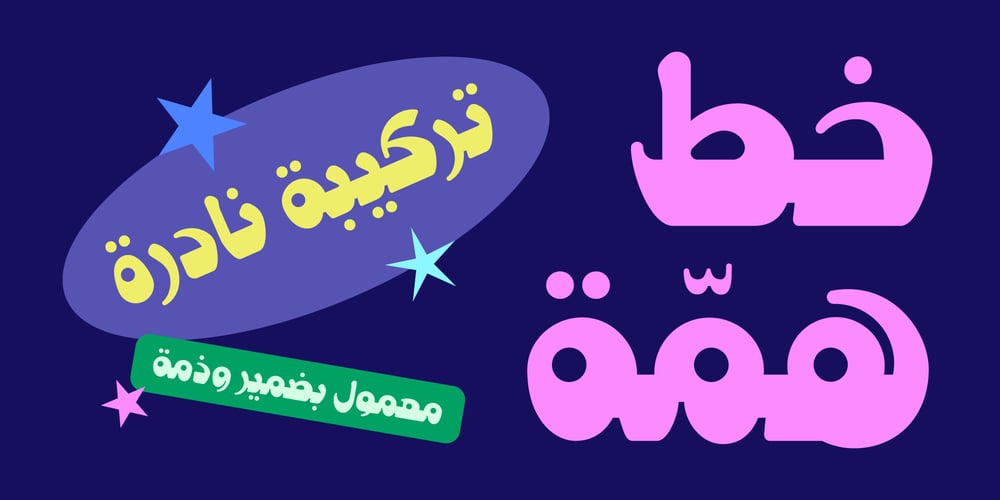
Hemmah Arabic Font Family was designed by Abdulrahman Eleraqy and published by Eraqy TF. Hemmah Arabic contains 1 styles and family package options. Hemmah is an Arabic display font that features a dynamic, heavy and playful letterform design. This font is an excellent choice for a various range of creative projects including publication design, branding and advertising. Hemmah supports web, print and mobile applications.